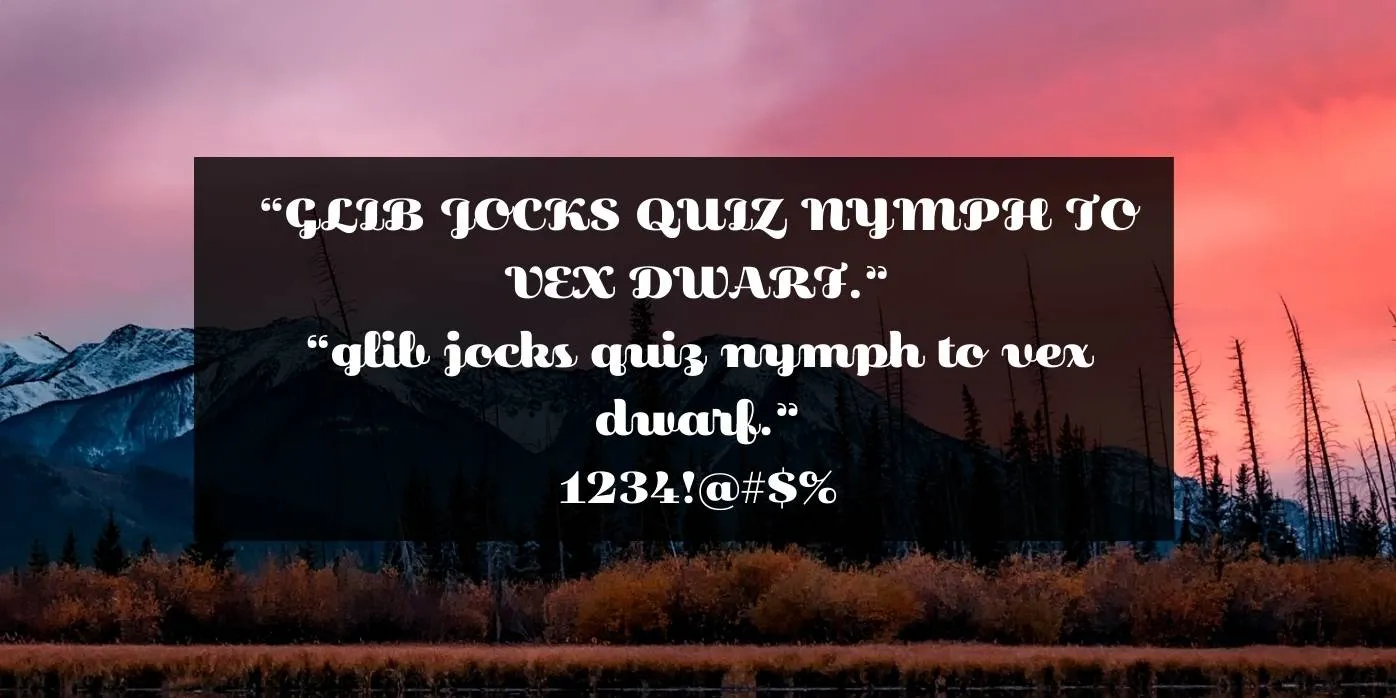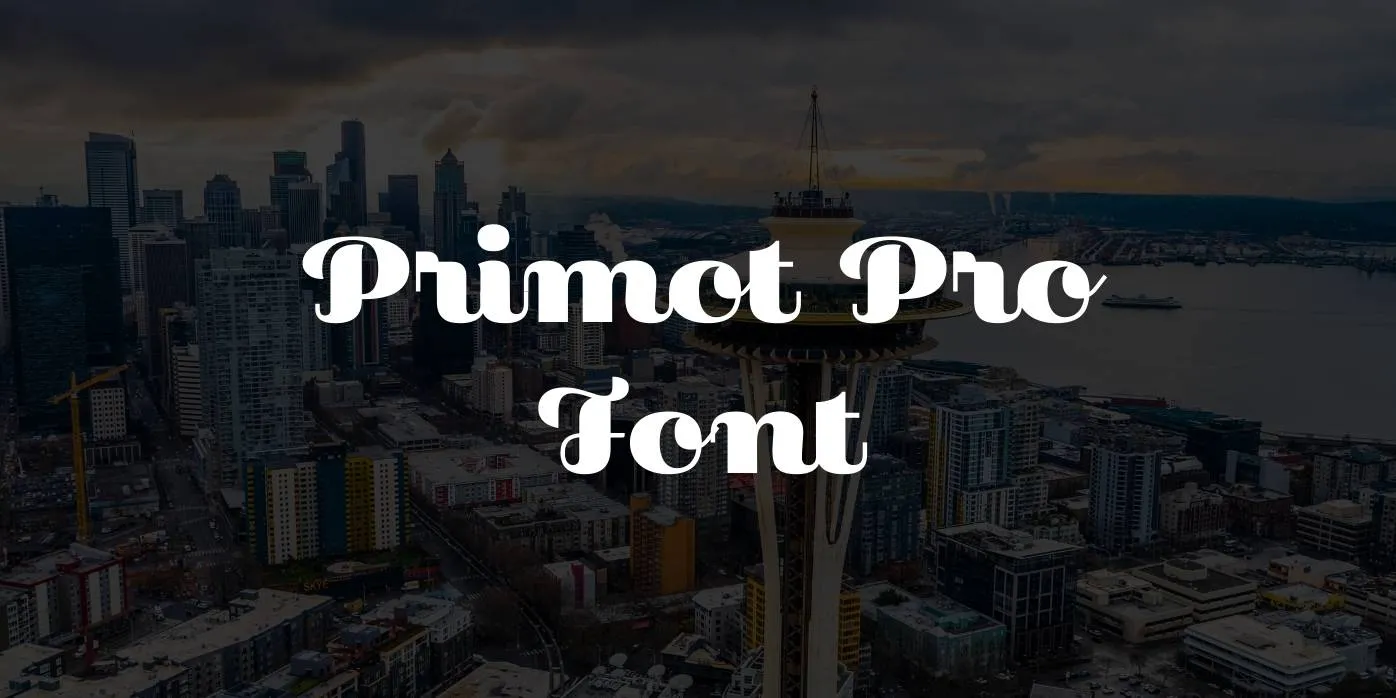
Primot Pro Font
Today, we are going to present a stylish typeface known as Primot Pro Font. This family was developed by Rodrigo Saiani. This typeface belongs to the script family. This typeface is specified for the CSS.
Primot pro is an amazing typeface that comes in two different styles. The first one is Primot Display, which is perfect for headlines and large text. The second style is Primot Text, which is great for body copy and small text. Its copy and paste function is suitable for all text designs.
For more classic features, you will have to use its alternative monotype corsiva font which has the same features. This typeface supports a wide range of languages including Latin, Cyrillic, Greek, and Vietnamese. It also has a good number of ligatures and alternates. The text generator tool of this family is perfect for various designs.